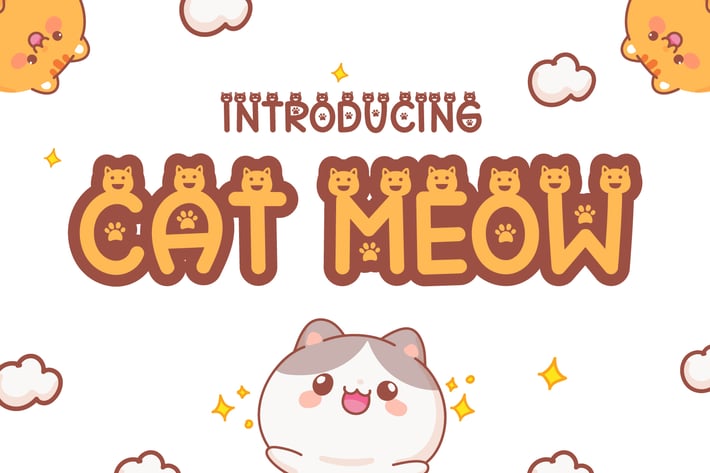
Cat Meow - Cute Display Font
Introducing Cat Meow - Cute Display Font
Cat Meow is a cute, incredibly genuine, and fun decorative font, featuring little cats on each character. Whether you use it for cartoon-related designs, children's games, or just any creation that requires a lovely touch, this font will be an amazing choice.